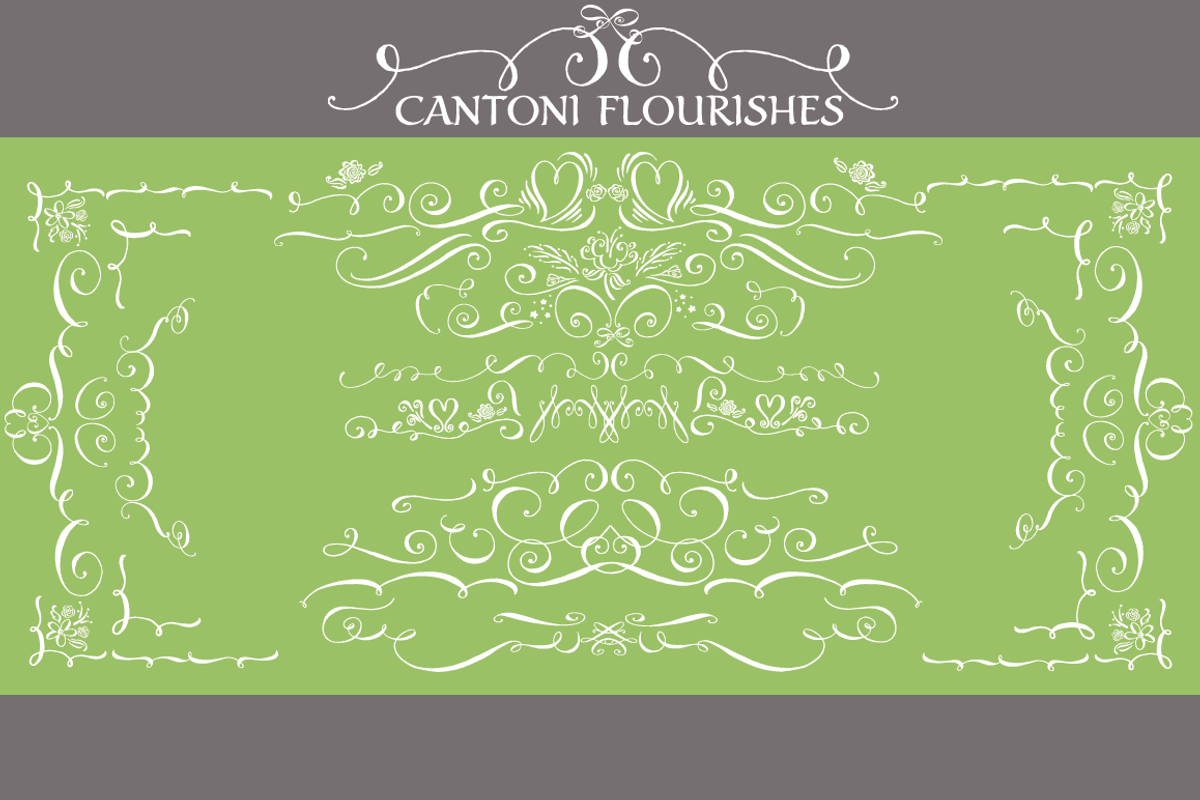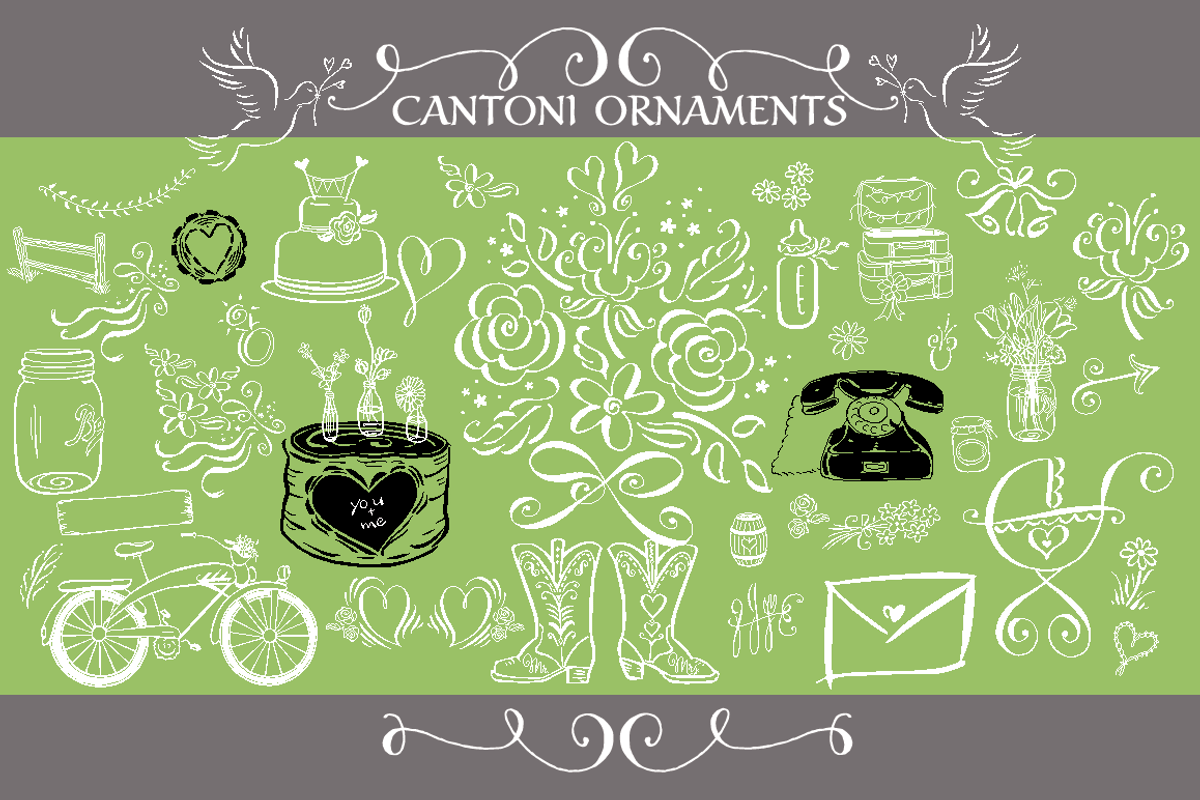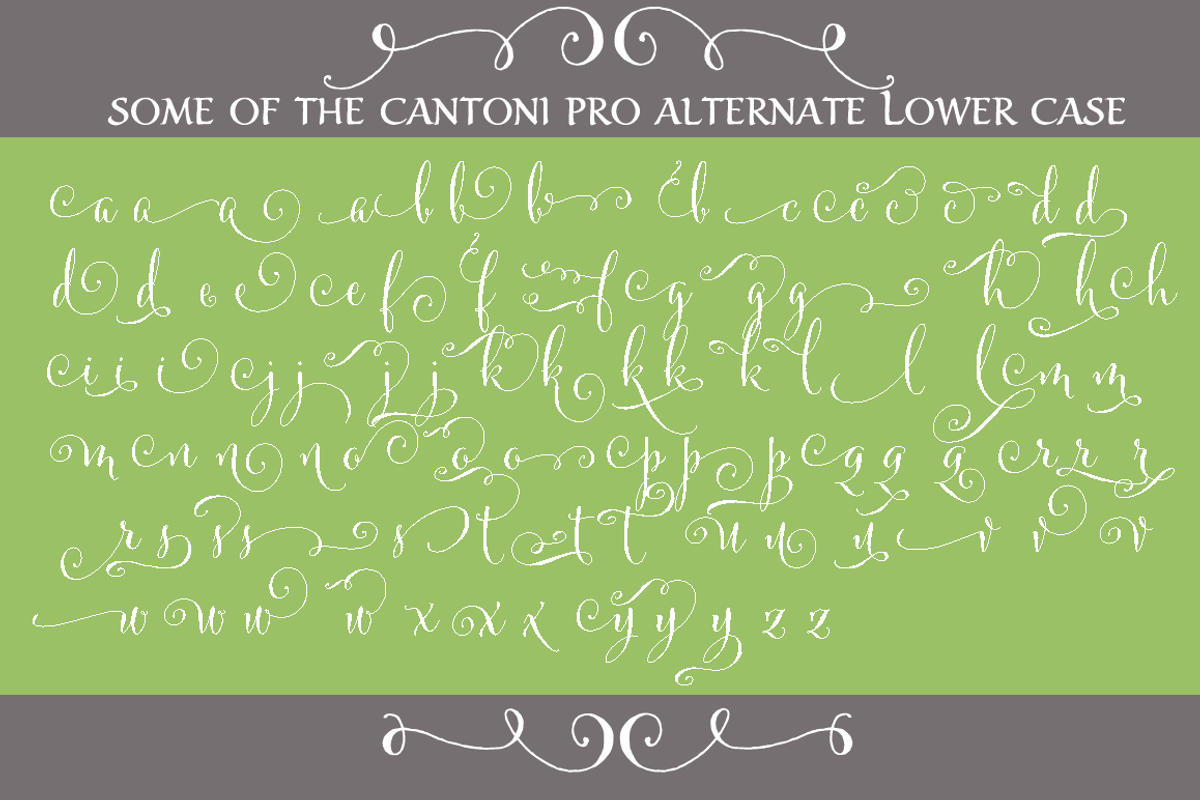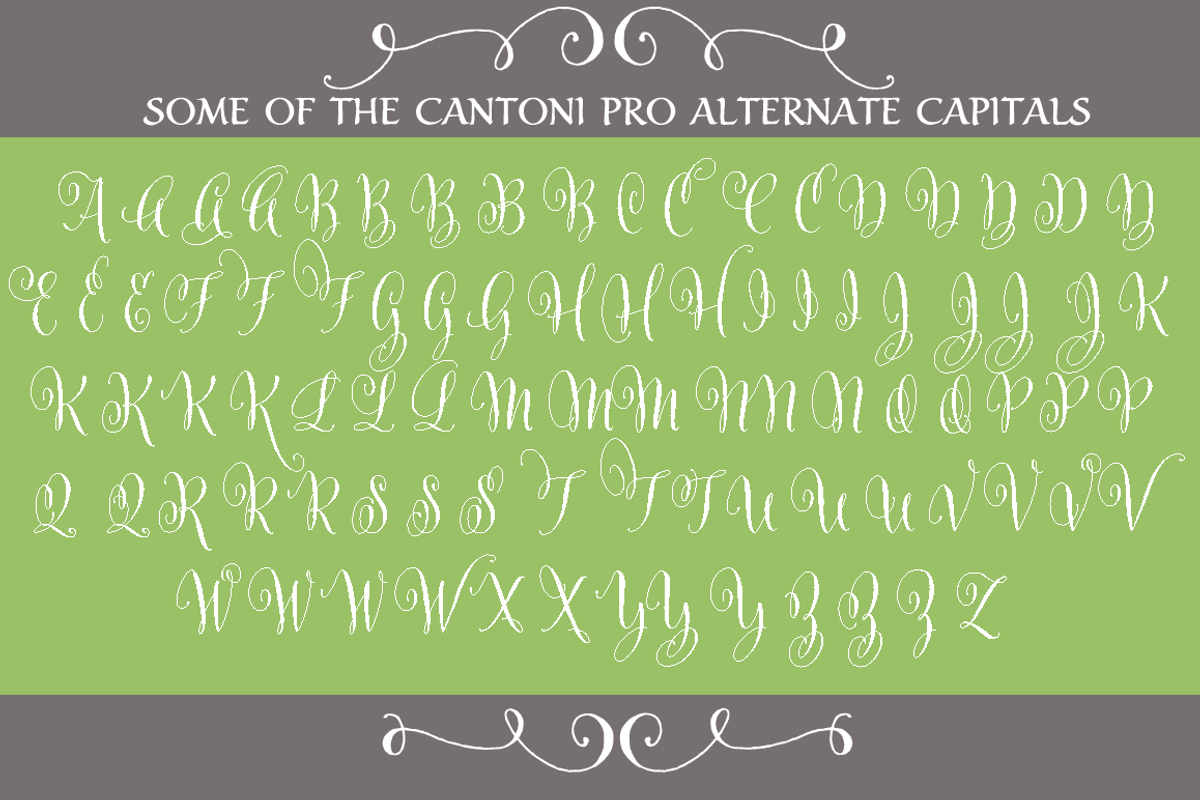
Cantoni Total Design Font
Cantoni Total Design Font by Debi Sementelli is a font selected for branding, posters, packaging, typography.
- It also includes Western and Central European, Romanian and Turkish language support.
- The Cantoni Total Design font includes: Cantoni Basic, Cantoni Basic Bold, Cantoni Pro, Cantoni Pro Bold, Cantoni Flourishes, Cantoni Orname
- The Cantoni Total Design Font family is a hand lettered font with a variety of standard and alternate characters that play together well.
Cantoni Total Design Font by Debi Sementelli fits naturally into Branding, posters, packaging, typography.